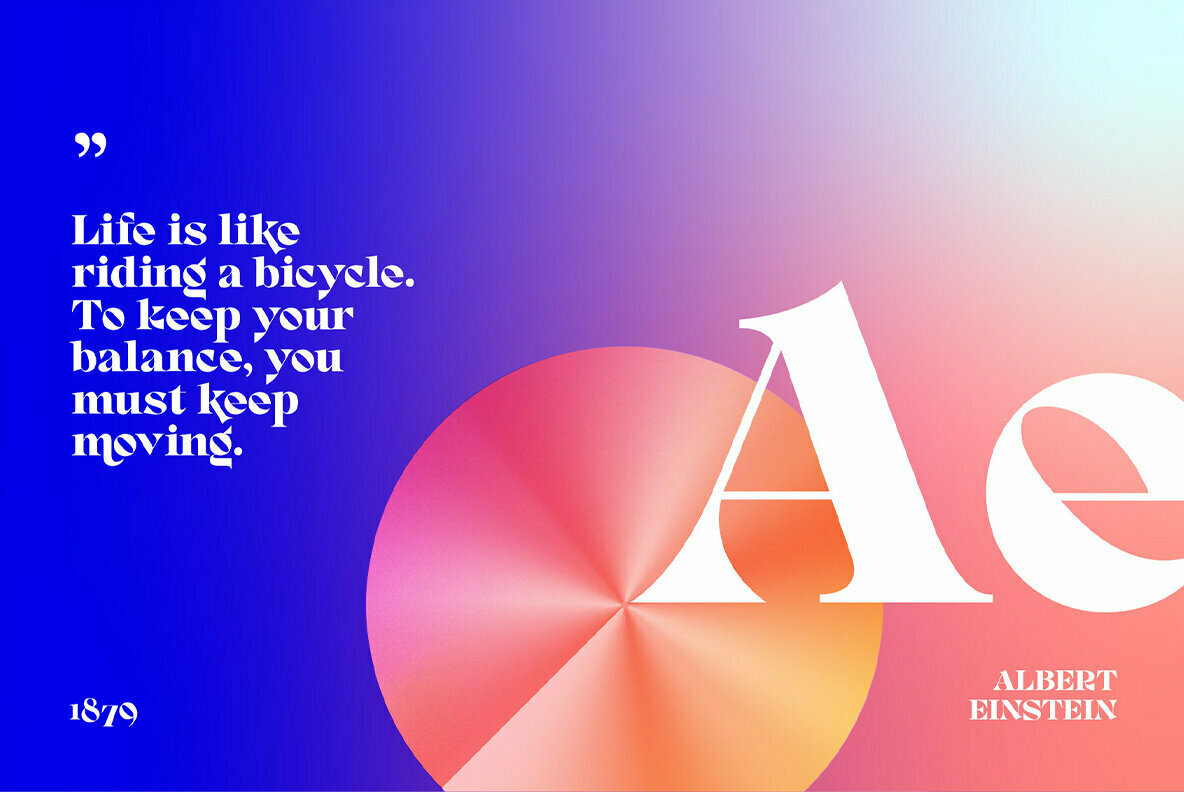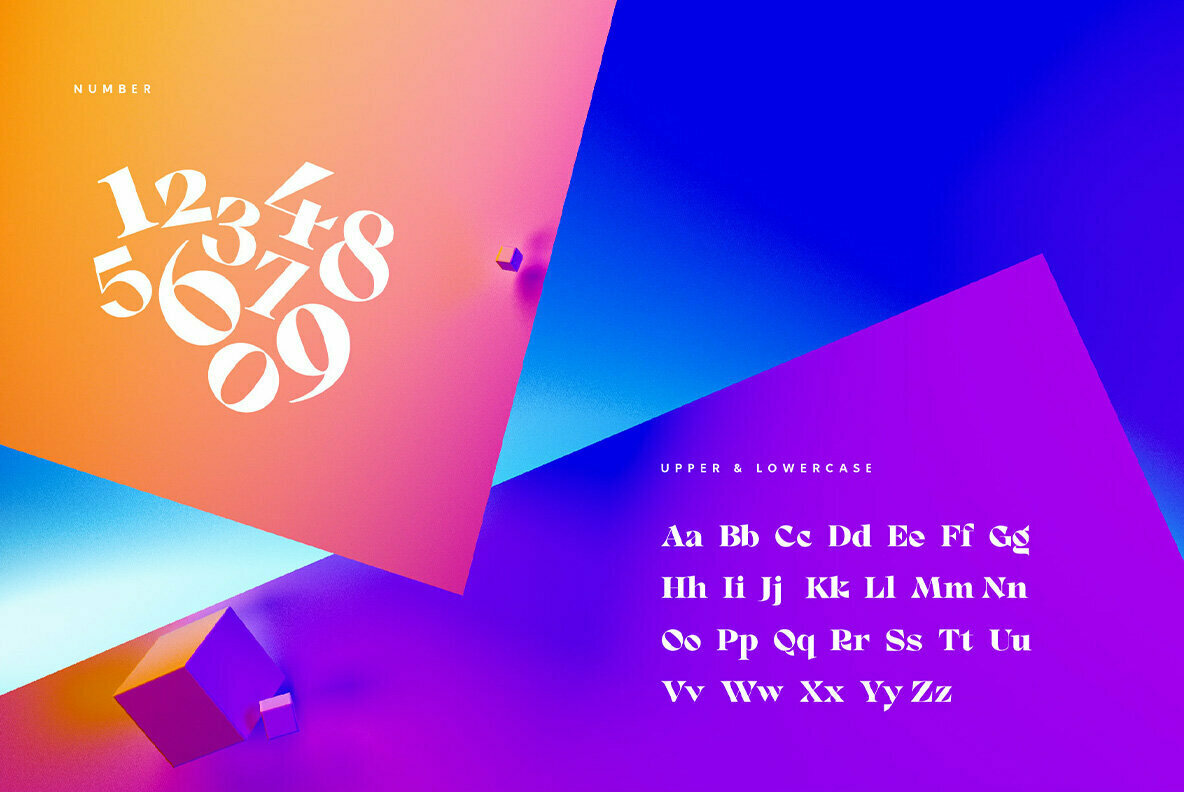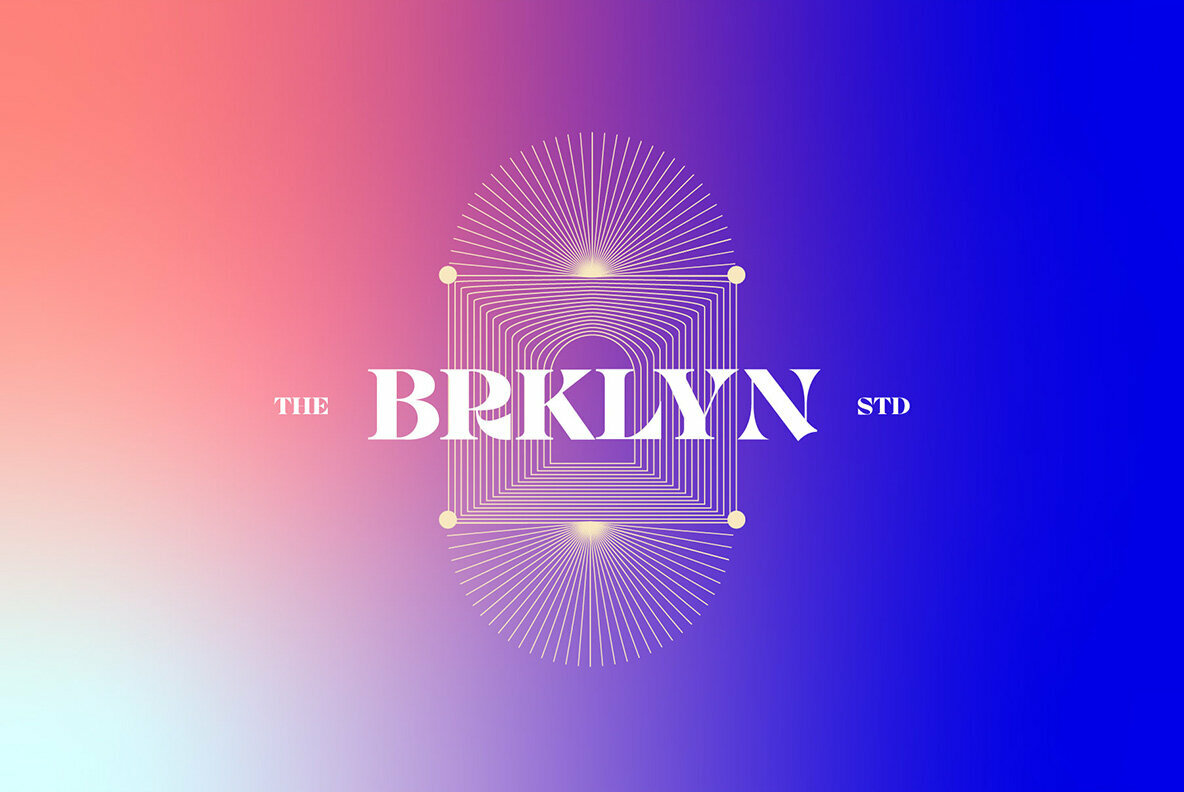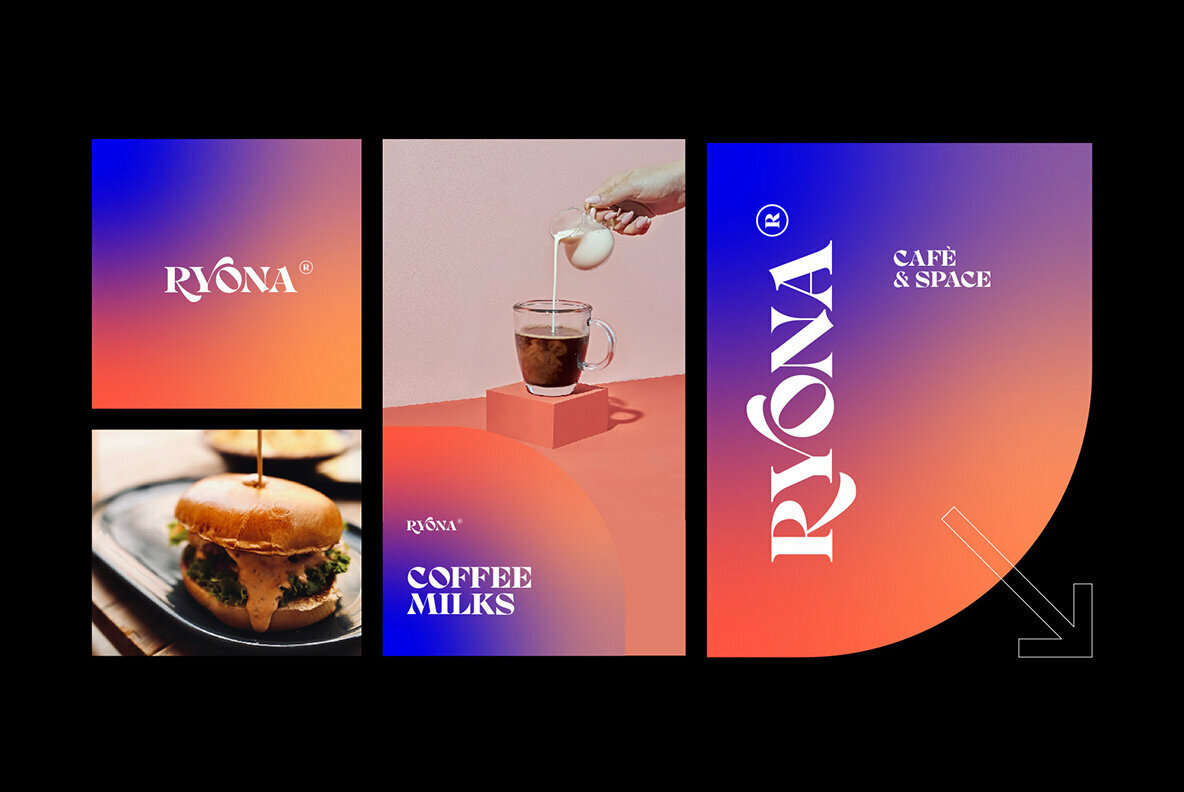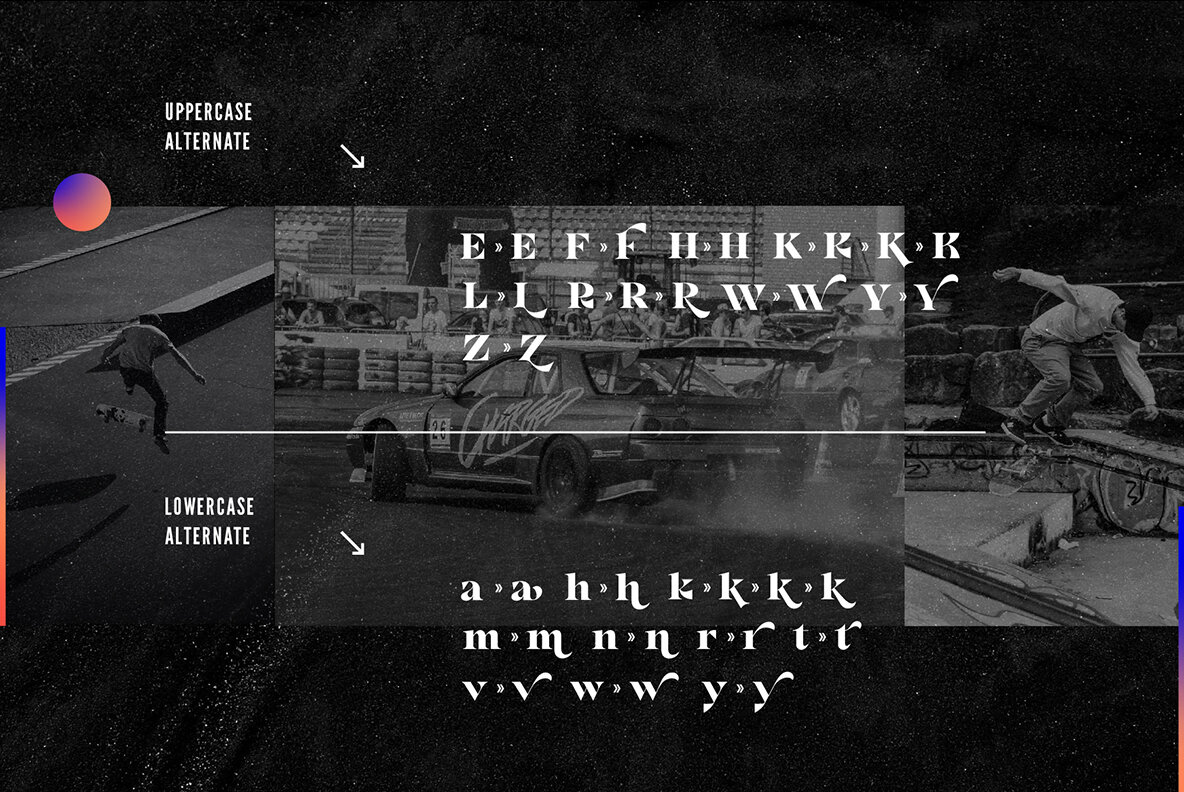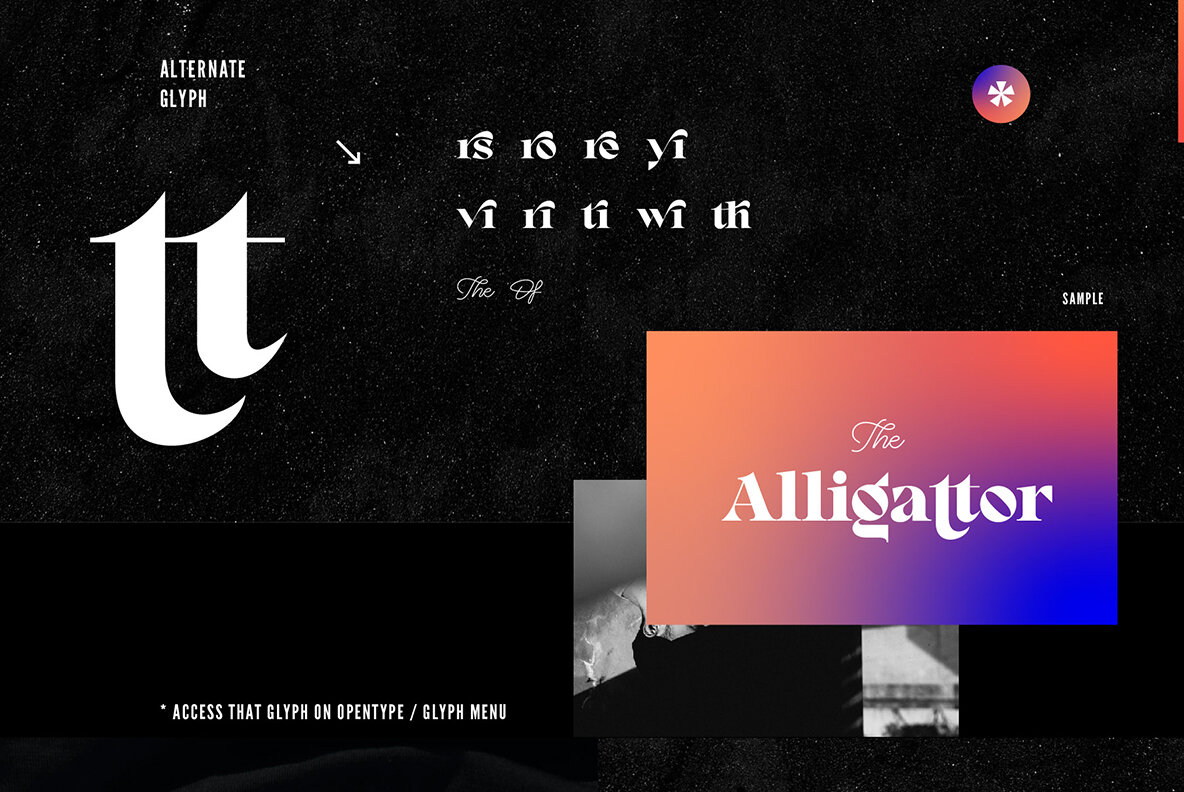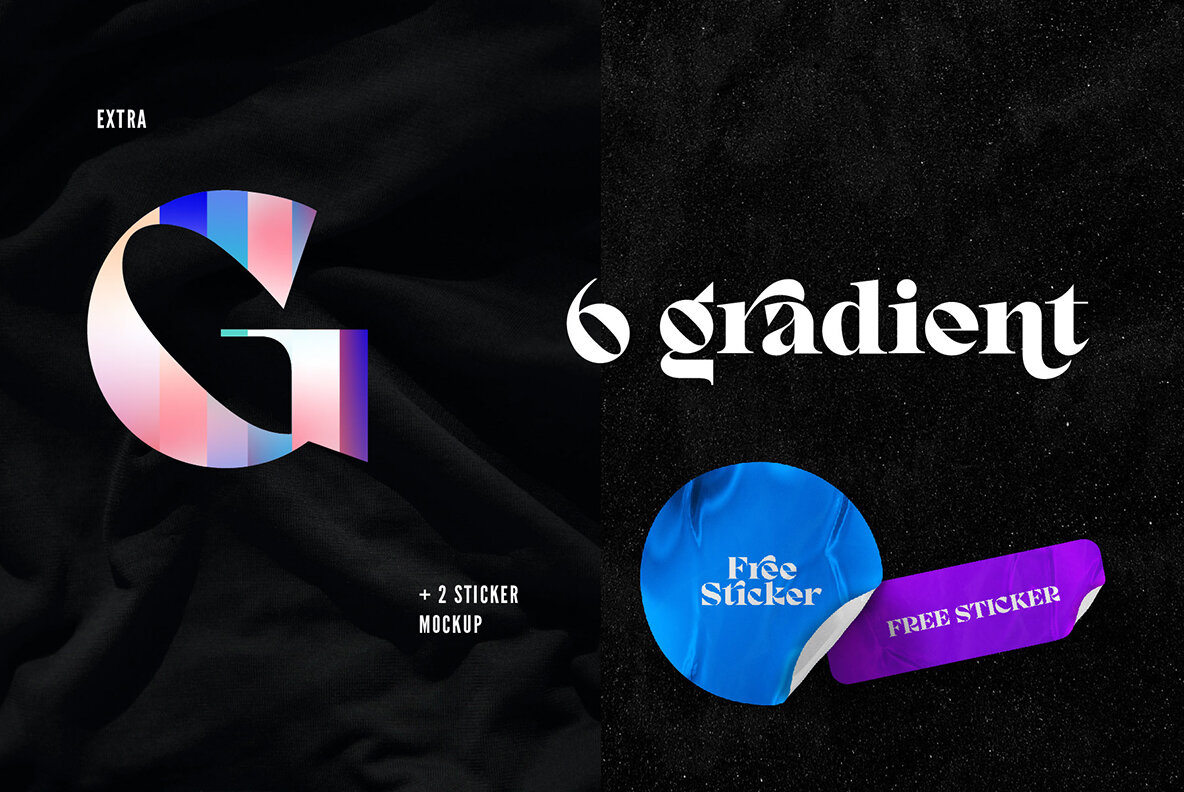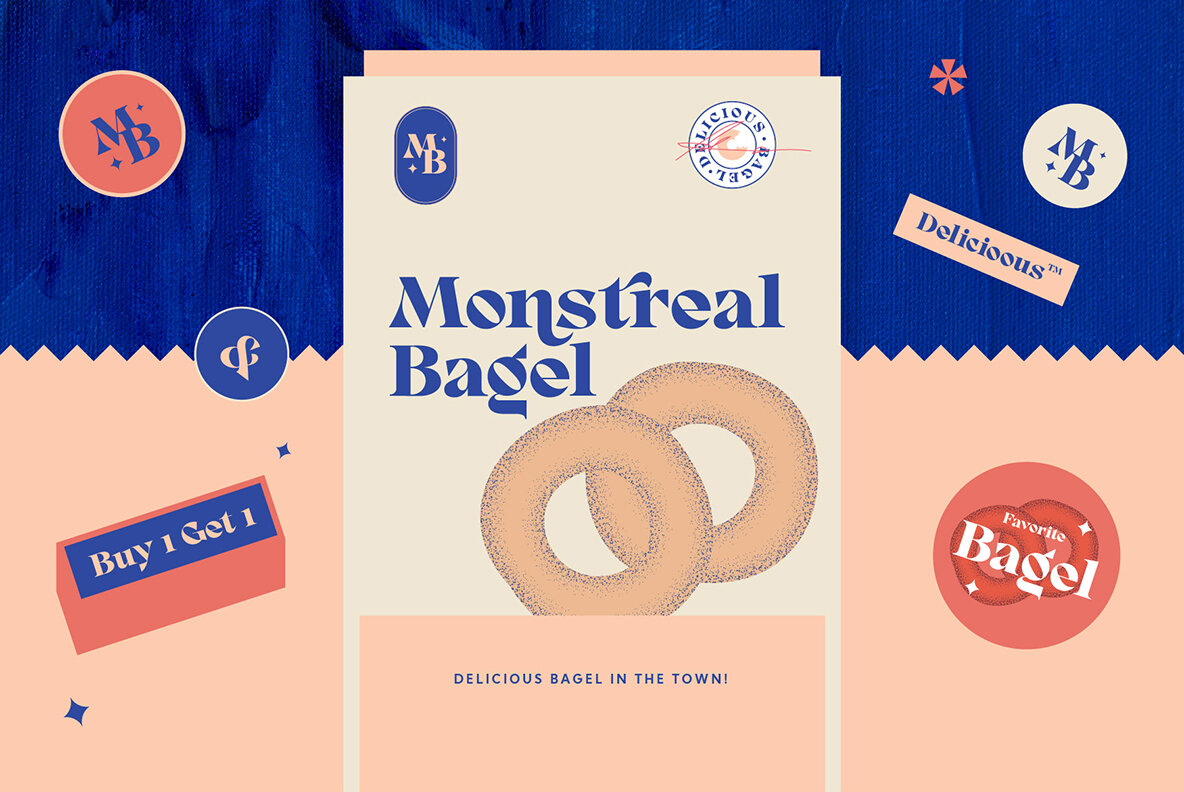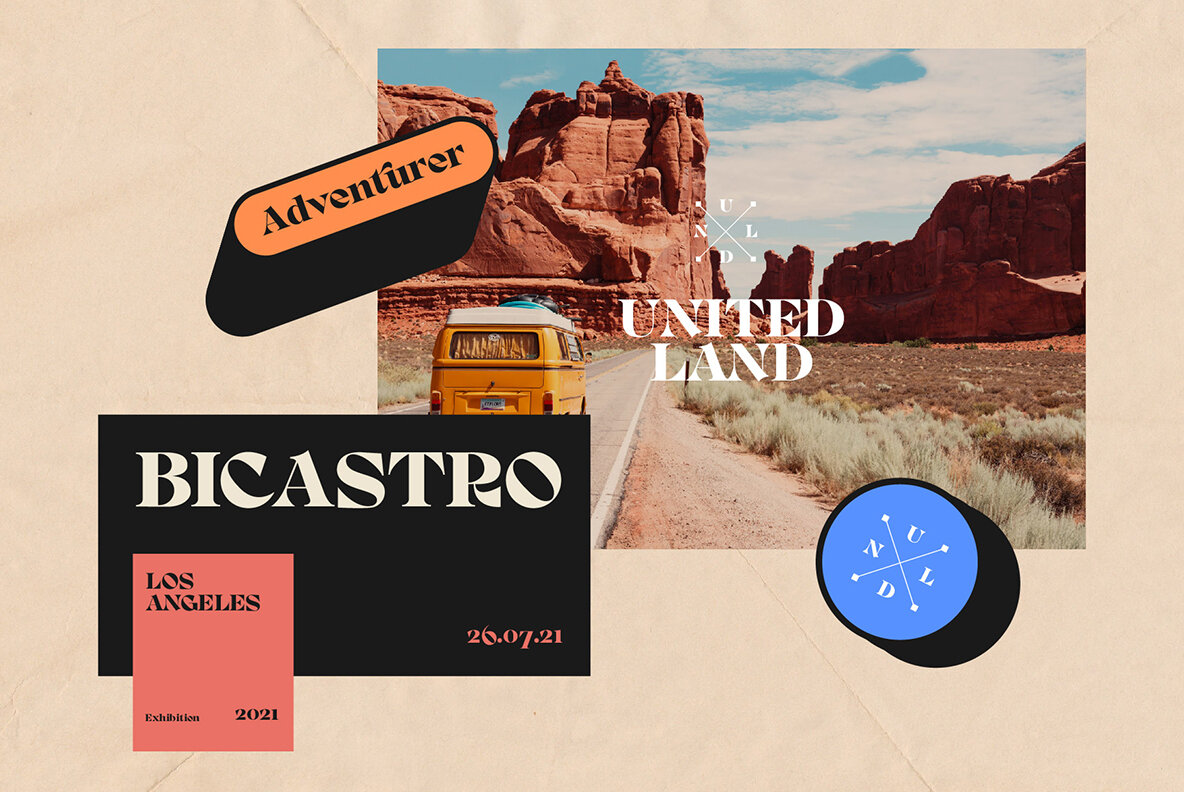
RF Lourney Font
RF Lourney Display and Extra (1 font)
RF Lourney is a bold serif modern display font designed for those who appreciate detail and elegance in their digital projects. Ideal for logos, magazines, brochures, or packaging, this versatile font effortlessly elevates any creative endeavor. With its multiple ligatures, RF Lourney adds a unique touch to menus, wedding invitations, or even opening video bumpers.RF Lourney: Bold Serif Modern Display Font